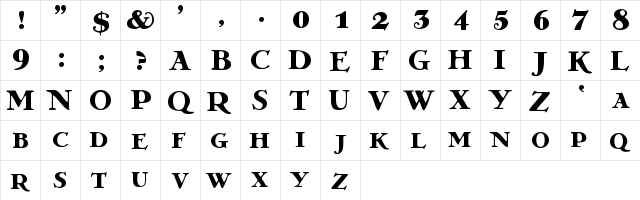
GrekoDeco Bold
Design Context for GrekoDeco Typeface
GrekoDeco takes a measured approach to typography — its balanced proportions and neutral character make it a reliable workhorse for both digital and print work. Its bold stroke weight gives it real presence on the page.